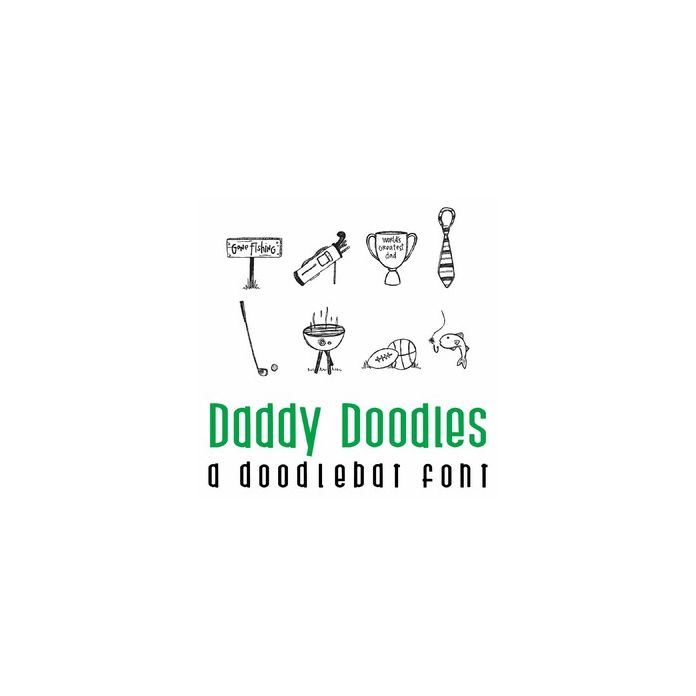
This fun doodlebat font features 26 doodle style dad themed images. Perfect for cards, gifts, decor, crafts, scrap book pages, planner stickers and more!